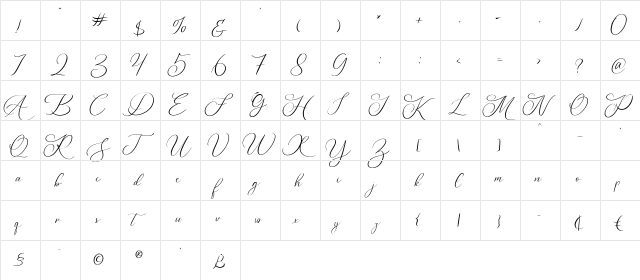
Dagtton Regular
| Foundry | Vultype Co |
| Designer | Vultype Co |
Design Context for Dagtton Typeface
Dagtton is a composed and adaptable typeface that performs quietly and consistently across a wide range of design contexts.